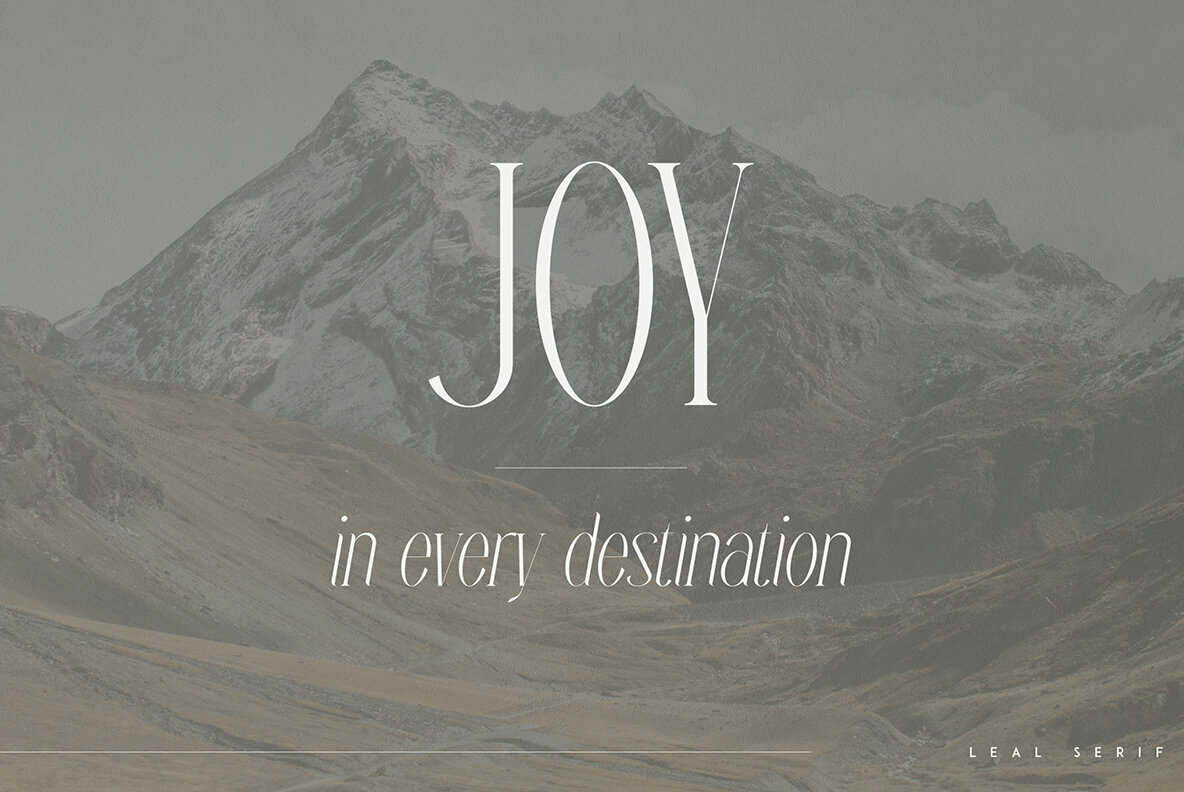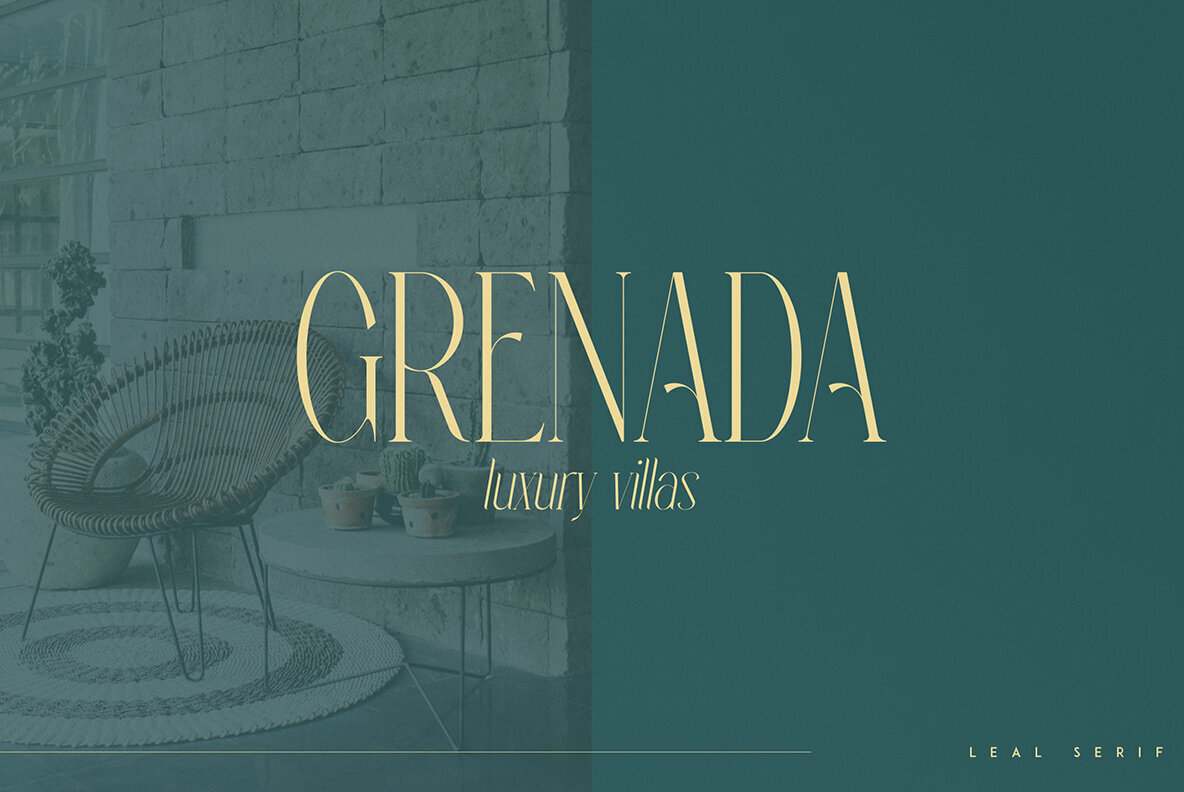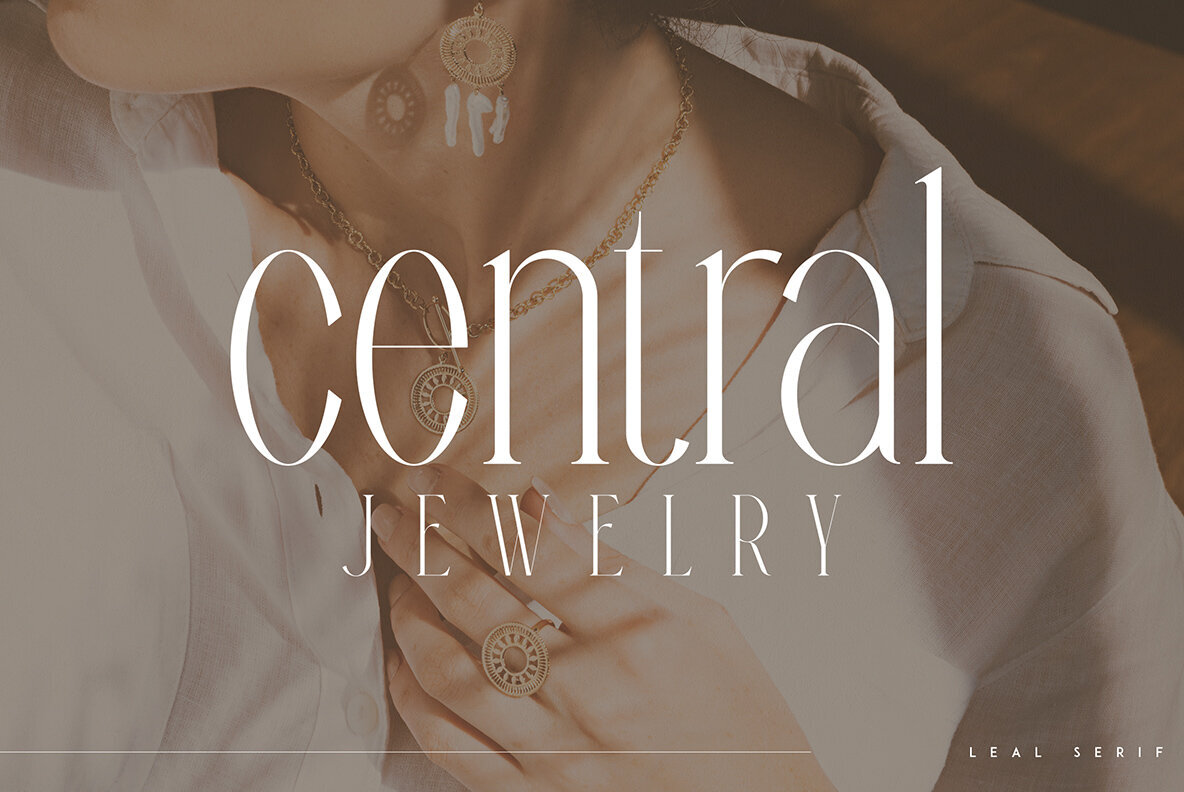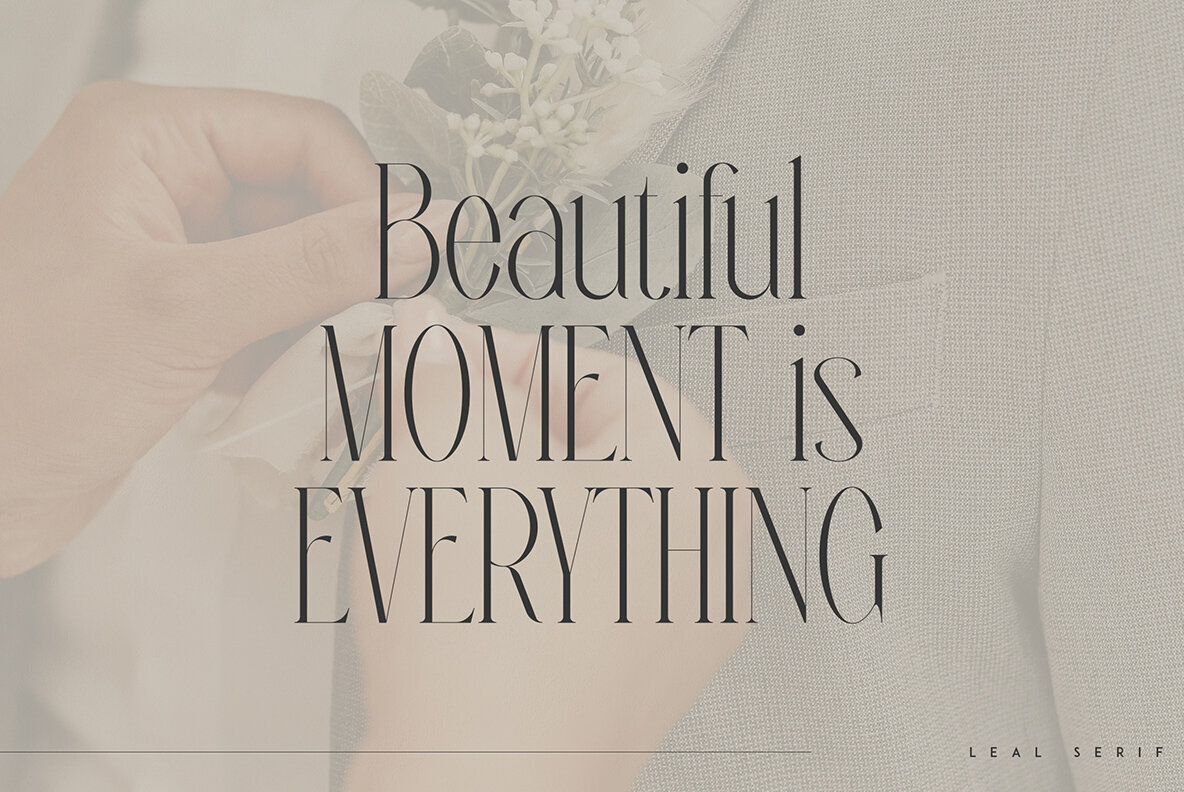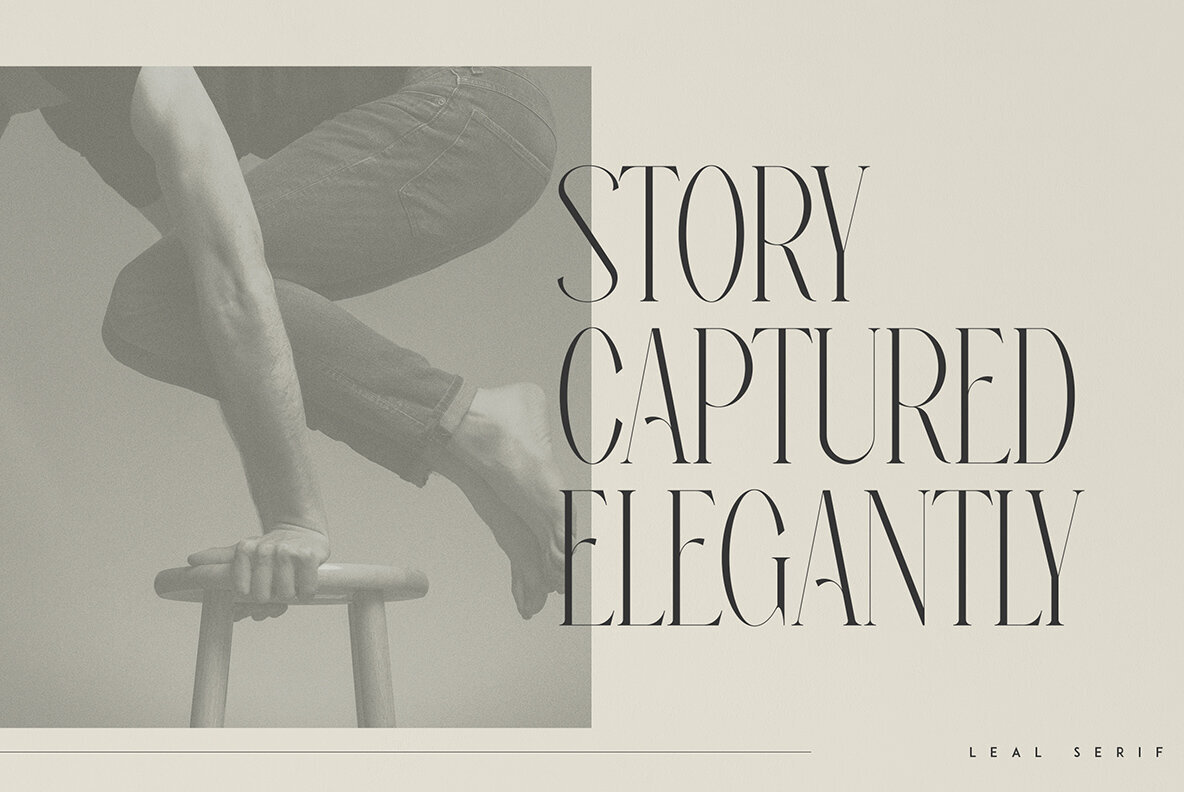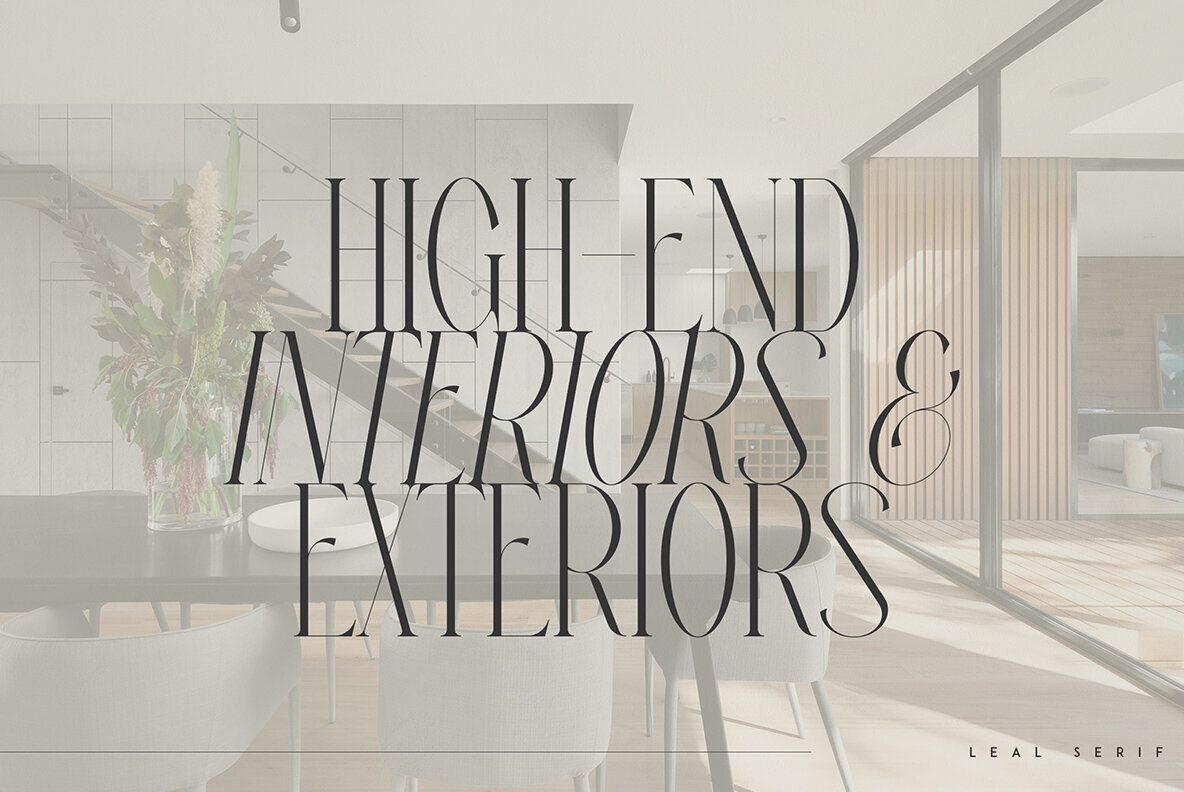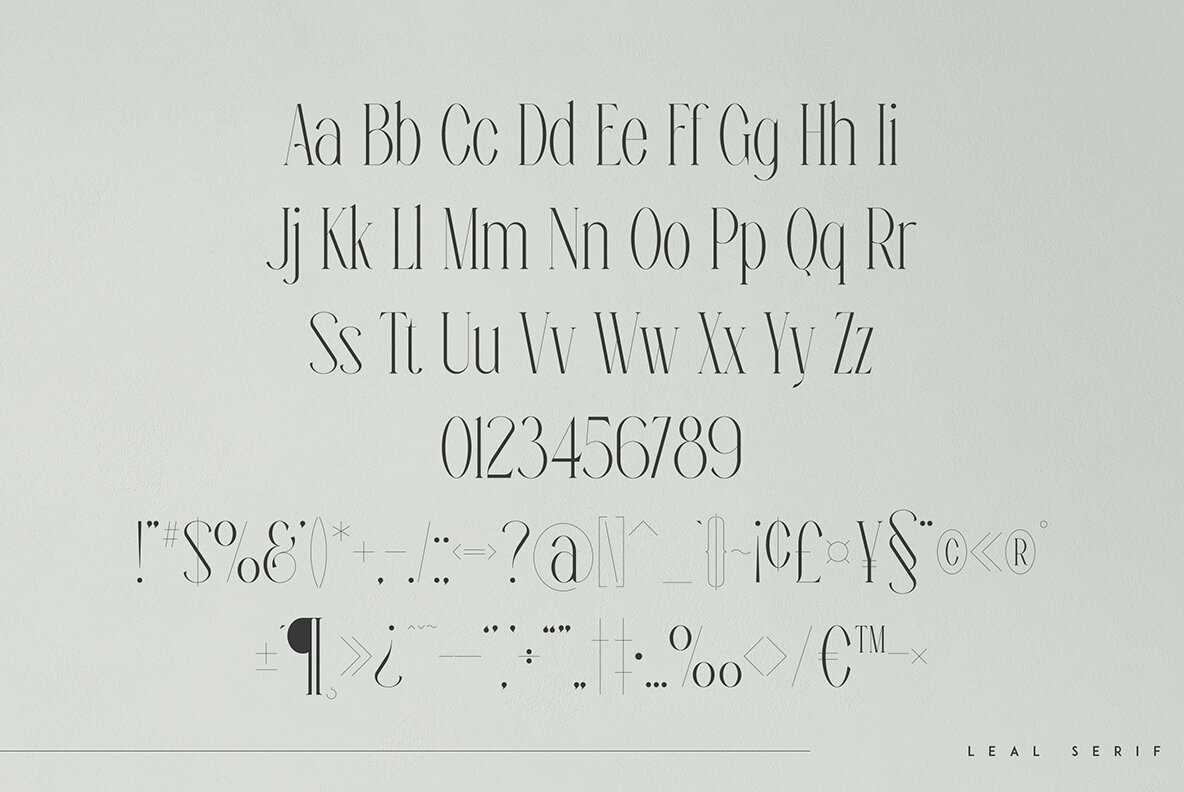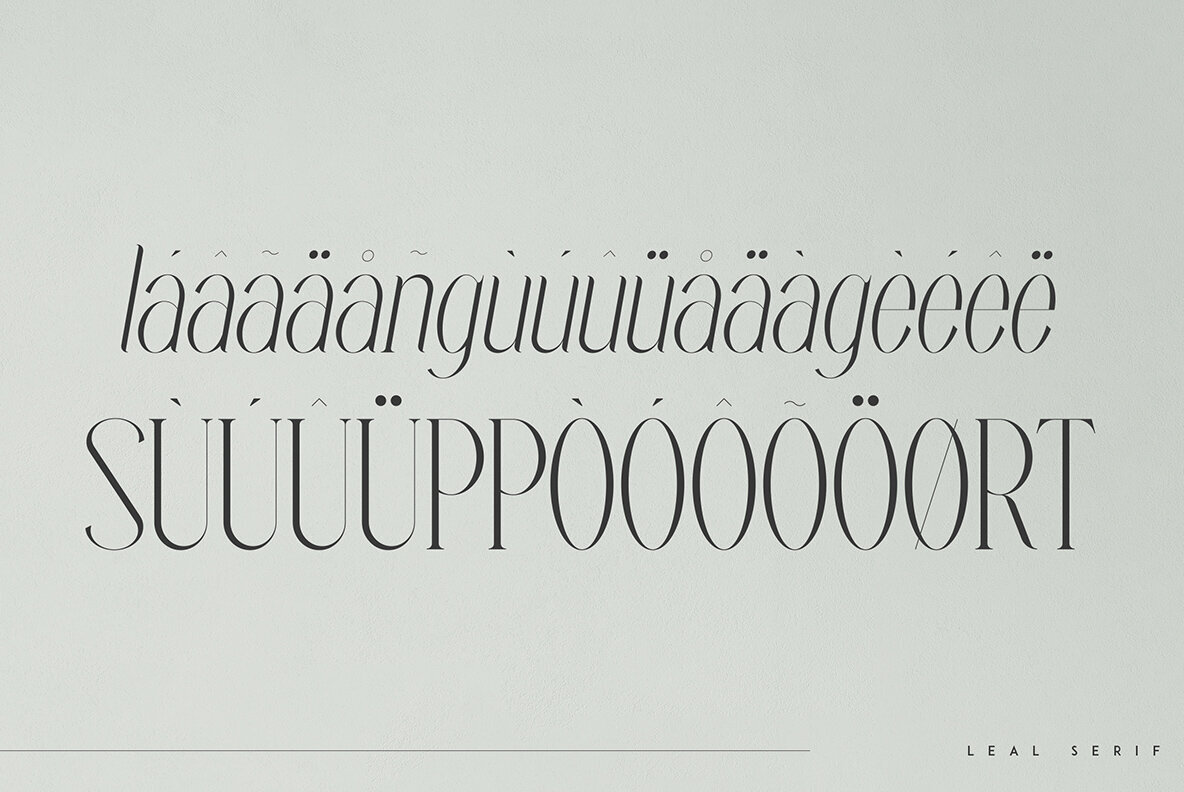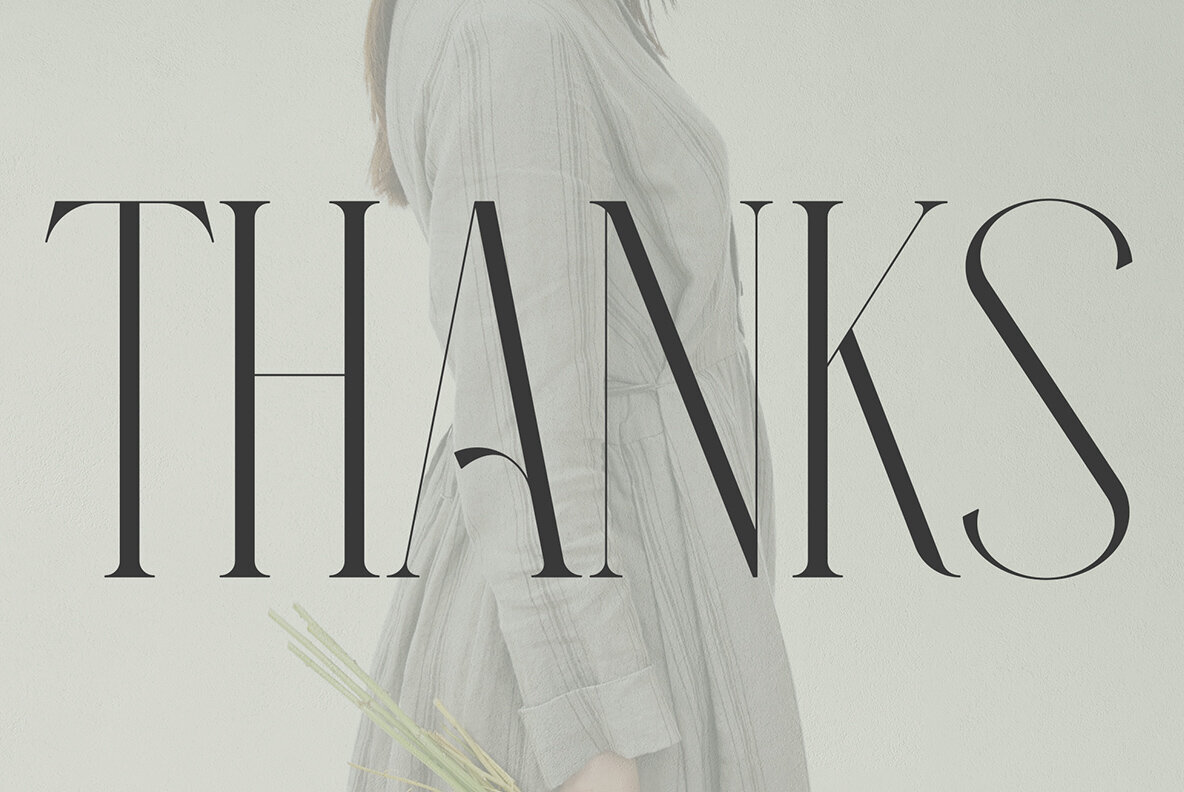
Leal Font
Leal Regular
Leal Italic
Leal brings a vintage touch to modern design with its long, retro-inspired style. Crafted by VP Creative Shop, this typeface is not just visually intriguing but also highly adaptable, making it ideal for both large and small applications across various contexts. The font finds its perfect fit in branding projects, home-ware designs, and product packaging. It also excels in magazine headers or as a sophisticated text overlay on any background image.Leal: A Retro-Inspired Typeface Offering Versatility